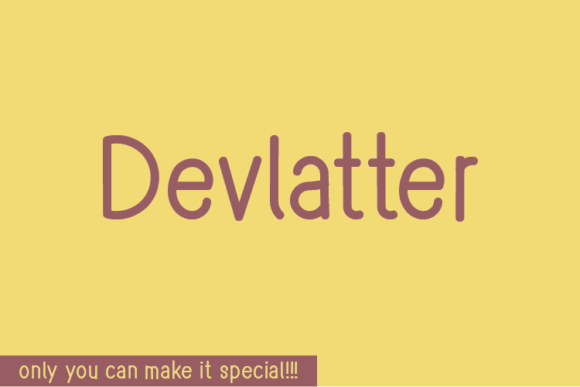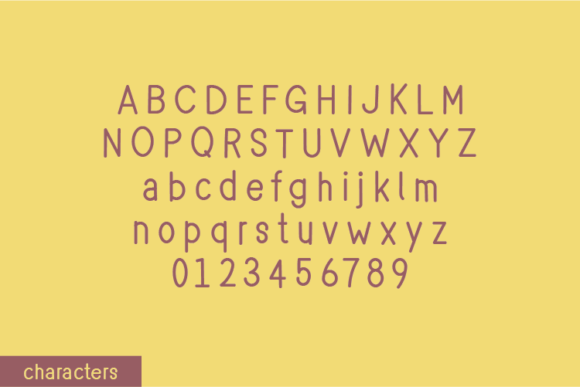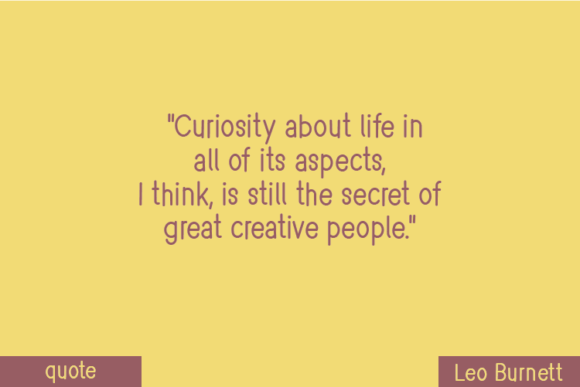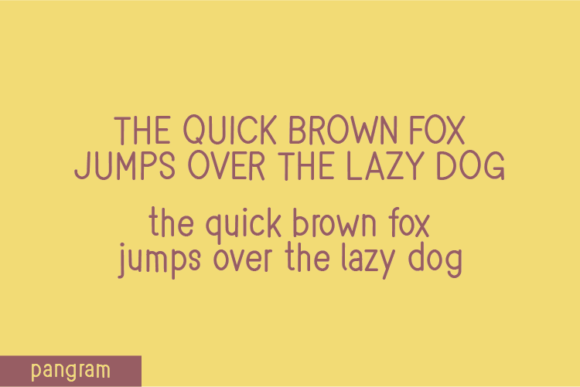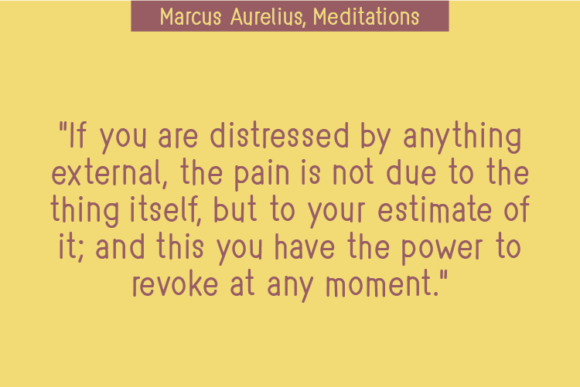
Devlatter Font
About Devlatter Font
Devlatter Font Download is a natural handwritten script that keeps every detail intact, making it authentic and unique. Designed without changing a single node in each character’s indentation, it reflects the true charm of handwritten text.
This organic look gives Devlatter a creative and personal style, making it perfect for projects where warmth and individuality matter.
Key Features
• Naturally flowing handwritten style
• Preserves authentic letter shapes
• Includes full character set with symbols and punctuation
Perfect For
• Quotes and social media graphics that need a personal touch
• Notes and journals with creative flair
• T-shirts, hoodies, and apparel that stand out
• Product packaging and labels with unique charm
• Invitations, cards, and stationery
Devlatter’s versatility makes it a go-to font for designers and creators. It works beautifully in both print and digital designs, from casual notes to professional branding.